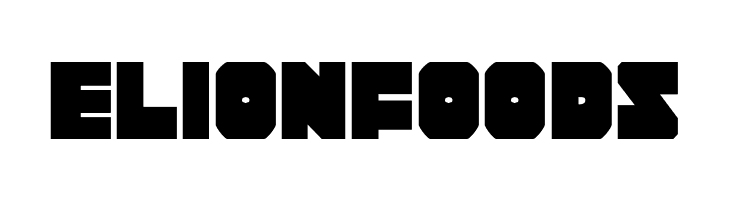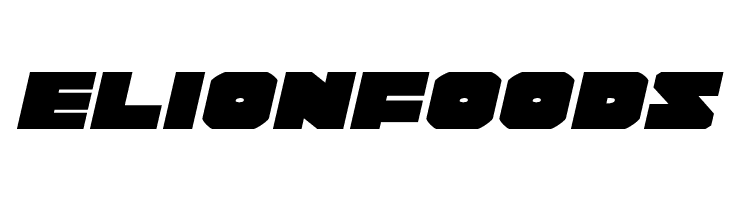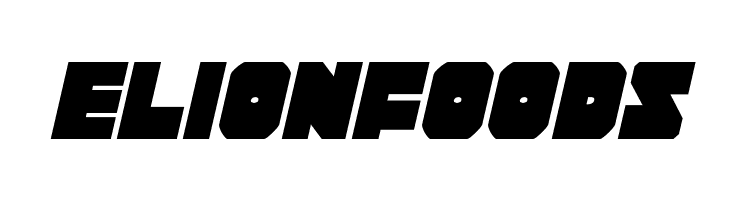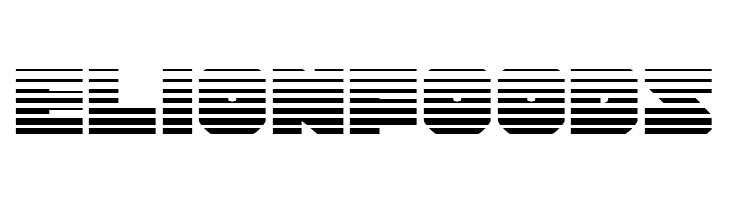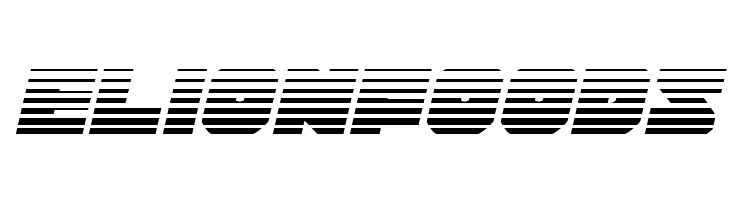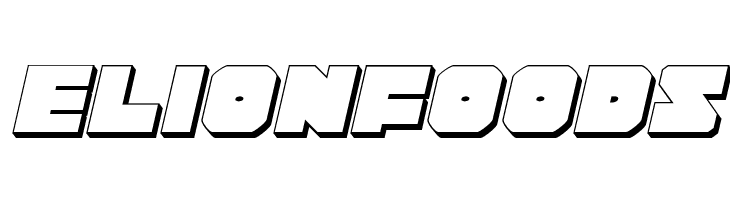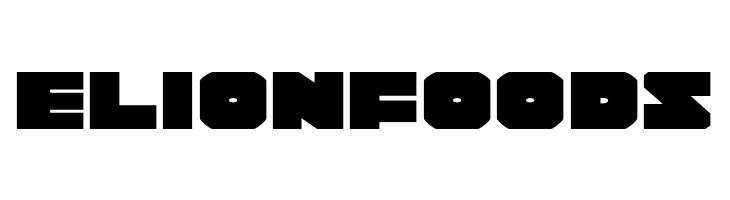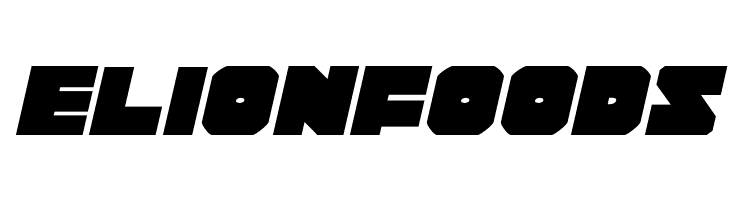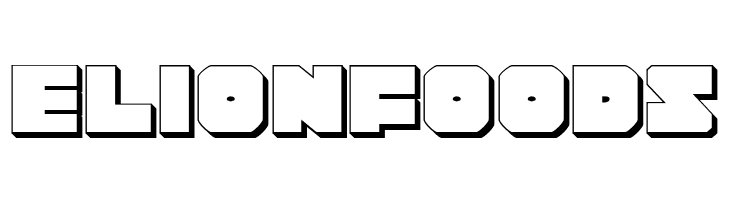
• Lobo Tommy 3D
A bold, 3D block-style font with a strong geometric design.
• Lobo Tommy 3D Italic
A bold, 3D italic font with a geometric and dynamic style.
• Lobo Tommy Condensed
A bold, geometric, and condensed font with a modern, edgy style.
• Lobo Tommy CondItalic
A bold, condensed, and italicized geometric font with a modern and edgy style.
• Lobo Tommy Expanded
A bold, geometric font with an expanded width and strong, blocky shapes.
• Lobo Tommy ExpItalic
A bold, italicized font with a modern, futuristic style and tight character spacing.
• Lobo Tommy Gradient
A bold, striped font with a modern, gradient effect.
• Lobo Tommy Gradient Italic
A bold, italicized font with a gradient effect created by horizontal lines, offering a futuristic and dynamic style.
• Lobo Tommy Italic
• Lobo Tommy Pro
A bold, geometric font with a futuristic and industrial aesthetic.